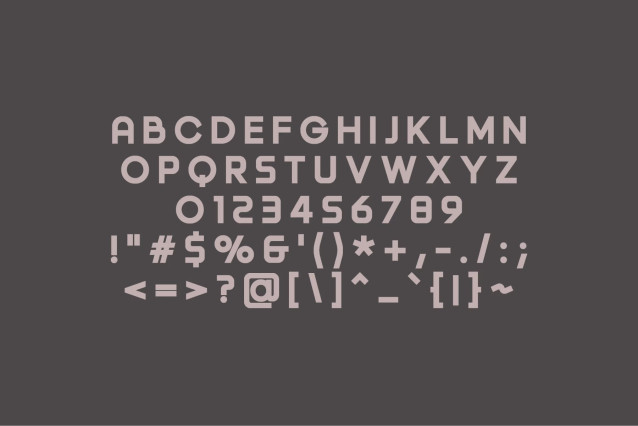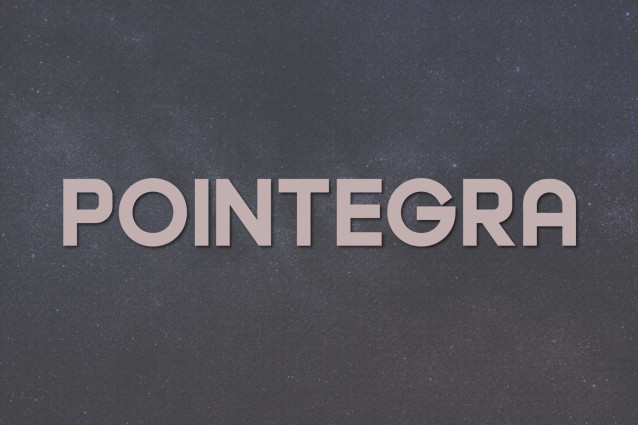
Pointegra Font
Introducing Pointegra, a modern, classy sans serif typeface. A sans serif typeface that contains upper characters, number 0-9 and a range of punctuation and symbols. An extremely versatile font, perfect for logos, weddings, invitations, quotes, advertisements, print, magazines, and more!